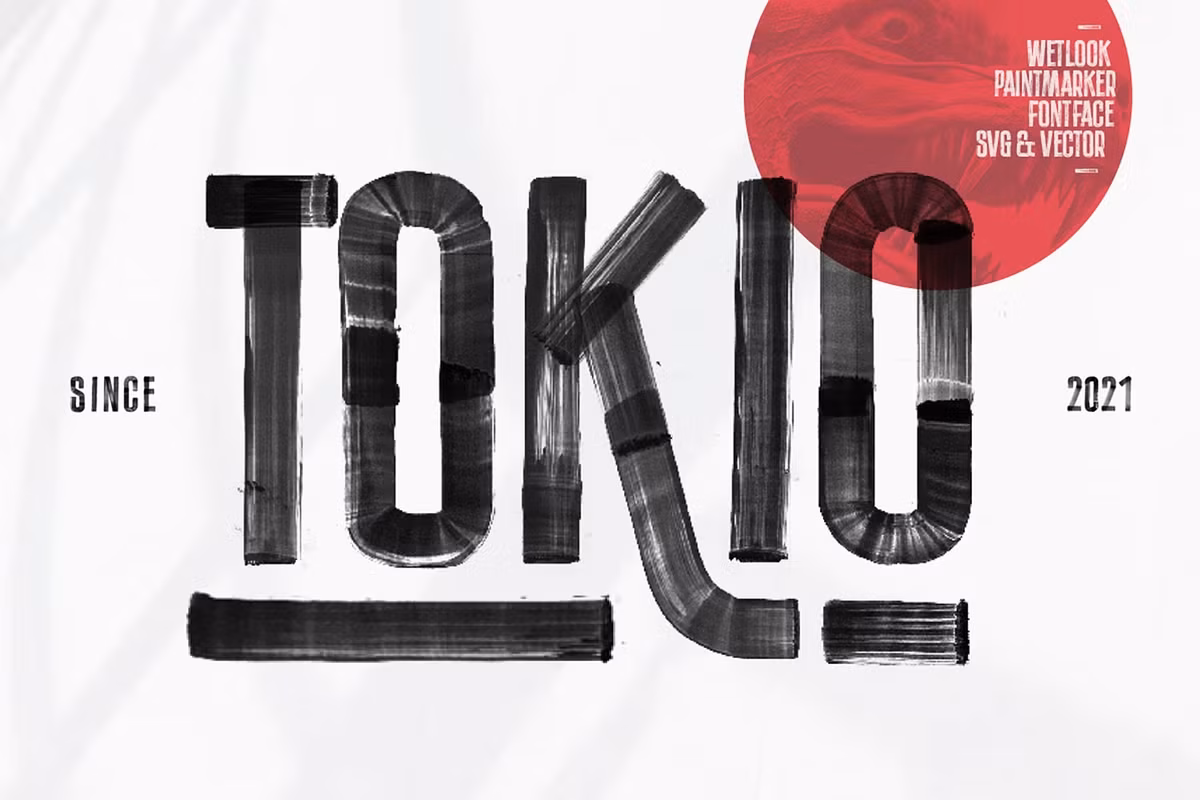
Tokio Marker Free Download
Tokio Marker Font Free Download
The font's dynamic brush-like texture adds an authentic, handcrafted look, making it ideal for projects that require a touch of personality and boldness. Whether you’re working on an event poster, a modern brand, or a creative campaign, Tokio Marker Font adds an artistic and fun element to your typography.